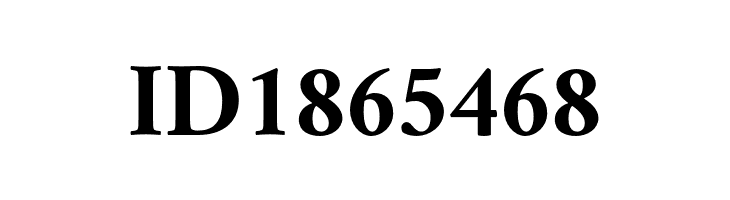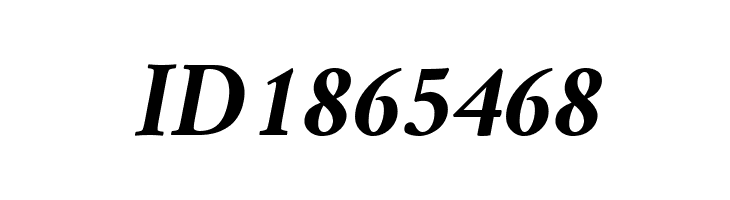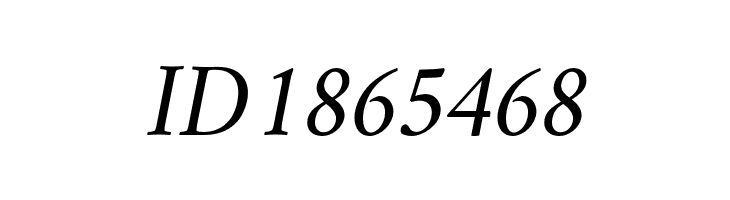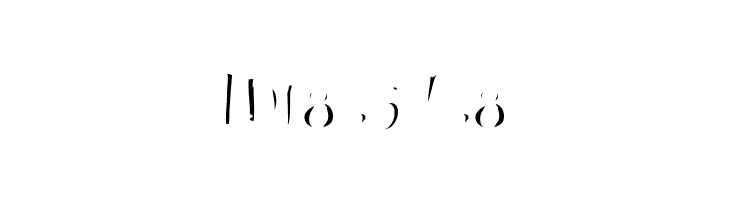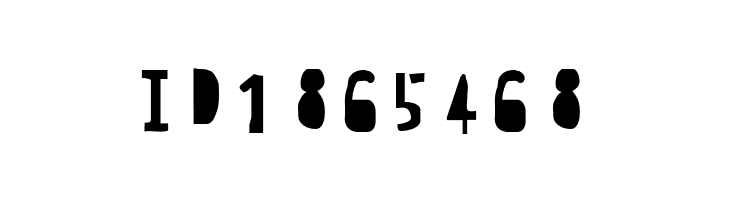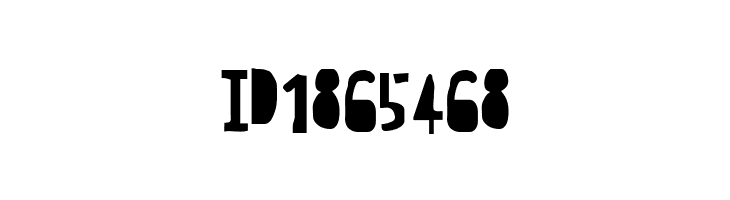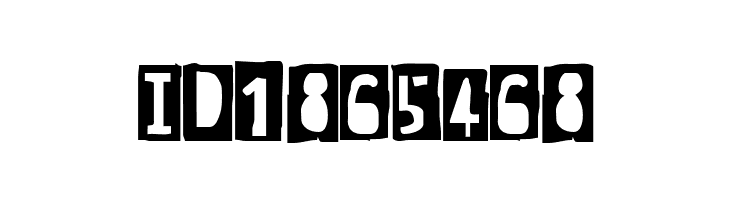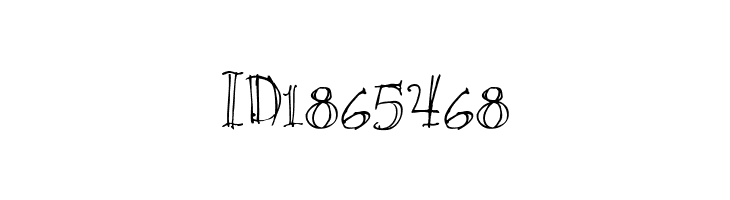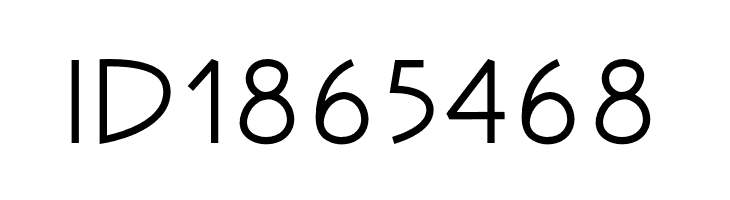
A bold, geometric font with sharp angles and a modern aesthetic.
A bold, geometric font with a striped, industrial design.
A bold, textured font with a dynamic, brush-like appearance.
A casual, handwritten font with dynamic strokes and a playful style.
A playful, rounded font with bold, bubbly letterforms.
A graceful script font with connected, flowing letters and a sophisticated style.
A fluid and elegant cursive font with smooth, connected letters.
A connected, cursive font with an elegant and fluid style.
A bold, distressed font with a grunge, textured style.
A bold, italicized font with a modern, dynamic style.
A bold, italicized font with a modern, sleek, and slightly condensed style.
A refined serif font with high contrast and elegant details.
An ornate, medieval-inspired font with intricate and decorative letterforms.
A modern, rounded sans-serif font with uniform strokes and balanced spacing.
A modern, light, sans-serif font with low contrast and clean lines.
Superhero silhouette font with bold, action-packed character shapes.
A bold, geometric font with sharp angles and a modern, edgy style.
A bold, angular font with sharp, geometric shapes for a striking appearance.
A playful serif font with a blend of traditional and modern elements.
A bold, condensed font with tall, narrow characters for dramatic impact.
A whimsical, tall, and narrow font with a modern-vintage style.
A bold, high-contrast font with tall, narrow characters and elongated serifs.
A tall, narrow, and bold font with tight spacing and a modern aesthetic.
A delicate serif font with thin, elongated strokes and subtle serifs.
A bold, decorative font with rounded characters and a playful style.
A bold, decorative font with tall, narrow characters and pronounced serifs.
A bold, condensed font with an Art Deco style and high contrast strokes.